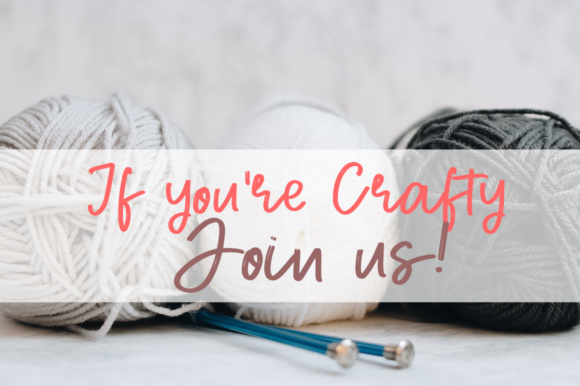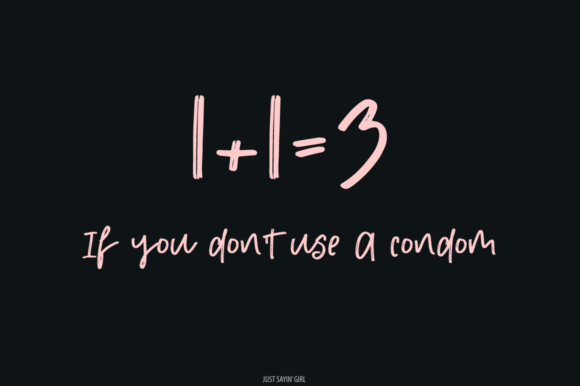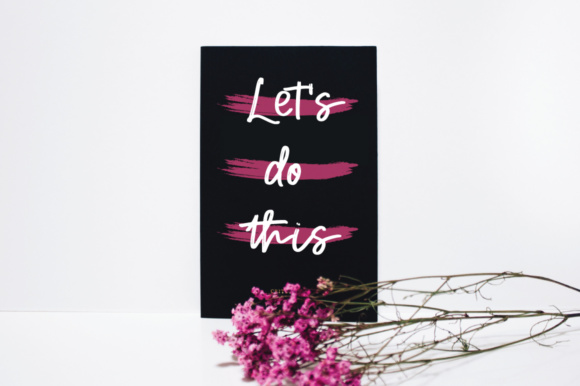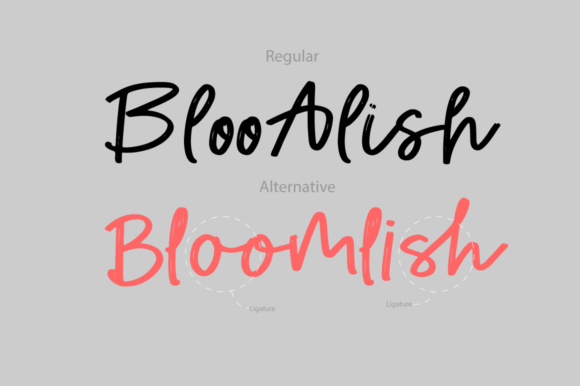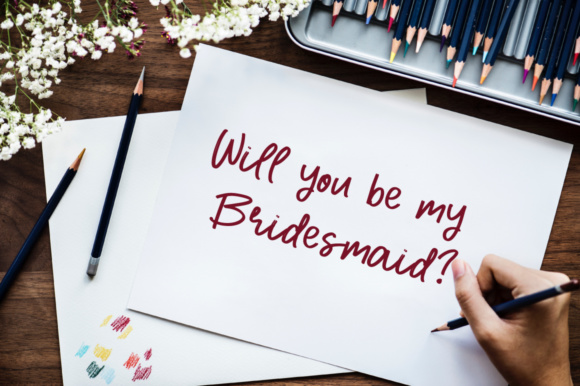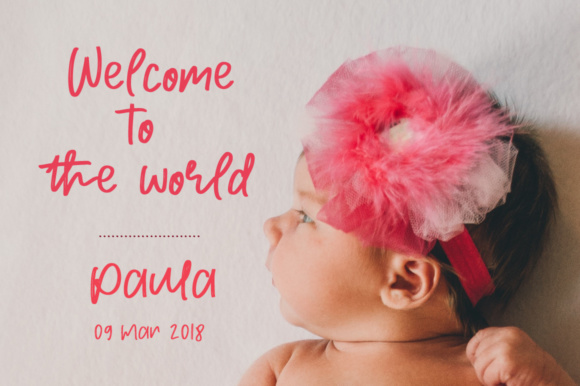
HomeScript FontsPlayful Font Script Fonts Playful Font FacebookXPinterestWhatsApp Playful Font Poster 2 Playful Font Poster 3 Playful Font Poster 4 Playful Font Poster 5 Playful Font Poster 6 Playful Font Poster 7 About Playful Font Playful is a classic script font. Every letter has been created carefully to make the ultimate script font. DOWNLOAD ON CREATIVE FABRICAThis font is sold and delivered by Creative Fabrica. Font Canyon may earn a commission if you buy through this link. People also explored Panoragraf Font Bindi Monogram Hippie Van Mockup Rear View Robbie Decorazo Font Goodboy Font Delighted Panda Font Heredittary Font Beringin Font 277 0 TagsPlayful Font Previous articleHorstail FontNext articleStill Mind Font LEAVE A REPLY Cancel reply Comment: Please enter your comment! Name:* Please enter your name here Email:* You have entered an incorrect email address! Please enter your email address here Website: Save my name, email, and website in this browser for the next time I comment. Personal Use Free Single Sleeve Personal Use Free Read more about this font Krabuler Personal Use Free Read more about this font Green Fuz Personal Use Free Read more about this font Camping Personal Use Free Read more about this font BLOG Best Fonts for T-Shirt Design – Top 2025 Picks In 2025, t-shirt design has become more than just fashion—it's a form of self-expression. Whether you're... Elegant Wedding Invitation Fonts – Handwritten & Script Fonts Exploring Font Trends Using Fonts in Digital Marketing: Tips to Strengthen Your Brand Identity